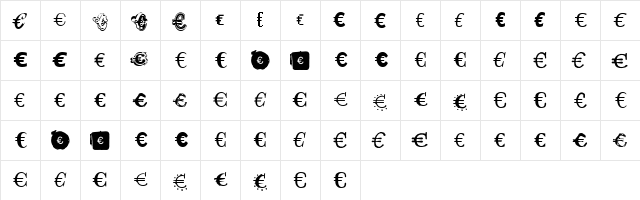
EmigreEuro Medium
Design Context for EmigreEuro Typeface
EmigreEuro is a composed and adaptable typeface that performs quietly and consistently across a wide range of design contexts.